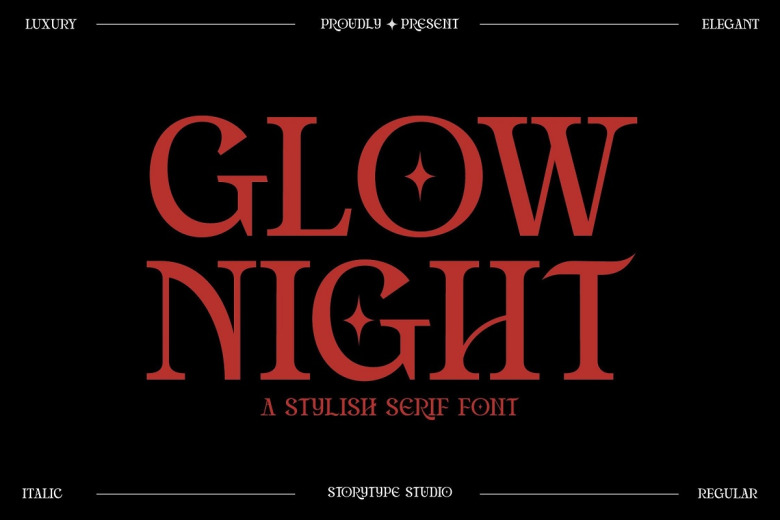
Glow Night Font
Glow Night is a traditional Serif Font with bold style and a modern aspect. Ideal for elegant and luxury logos, titles for books & movies, fashion brands, magazines, clothes, for wedding invitations &Save The Date, lettering, quotes, etc.
Glow Night Serif Font